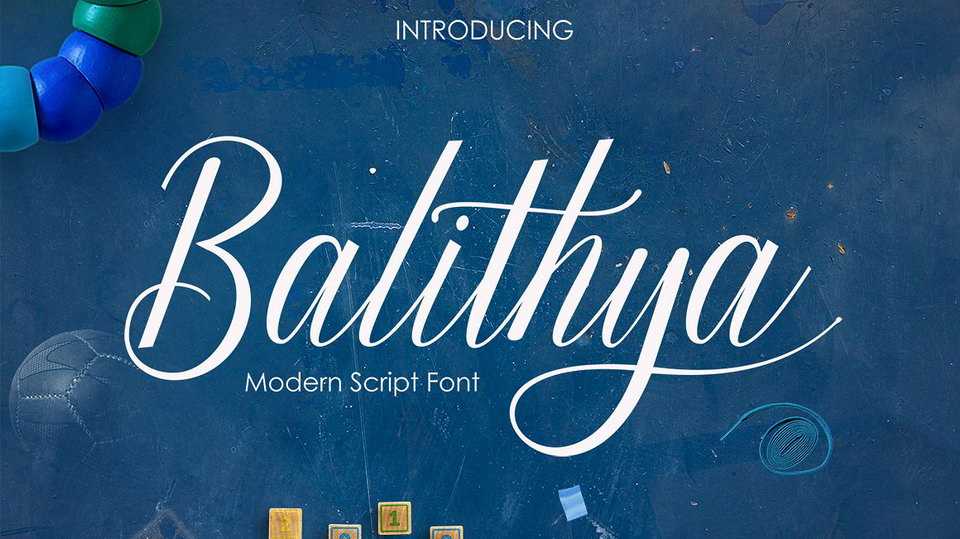
Download Balithya font, a charming handwritten script with very natural and light flow. It has a simple elegant swashes in separate letters. Great for wedding design, invitations and greeting cards, quotations, posters, branding, business cards, stationary, social media and more.